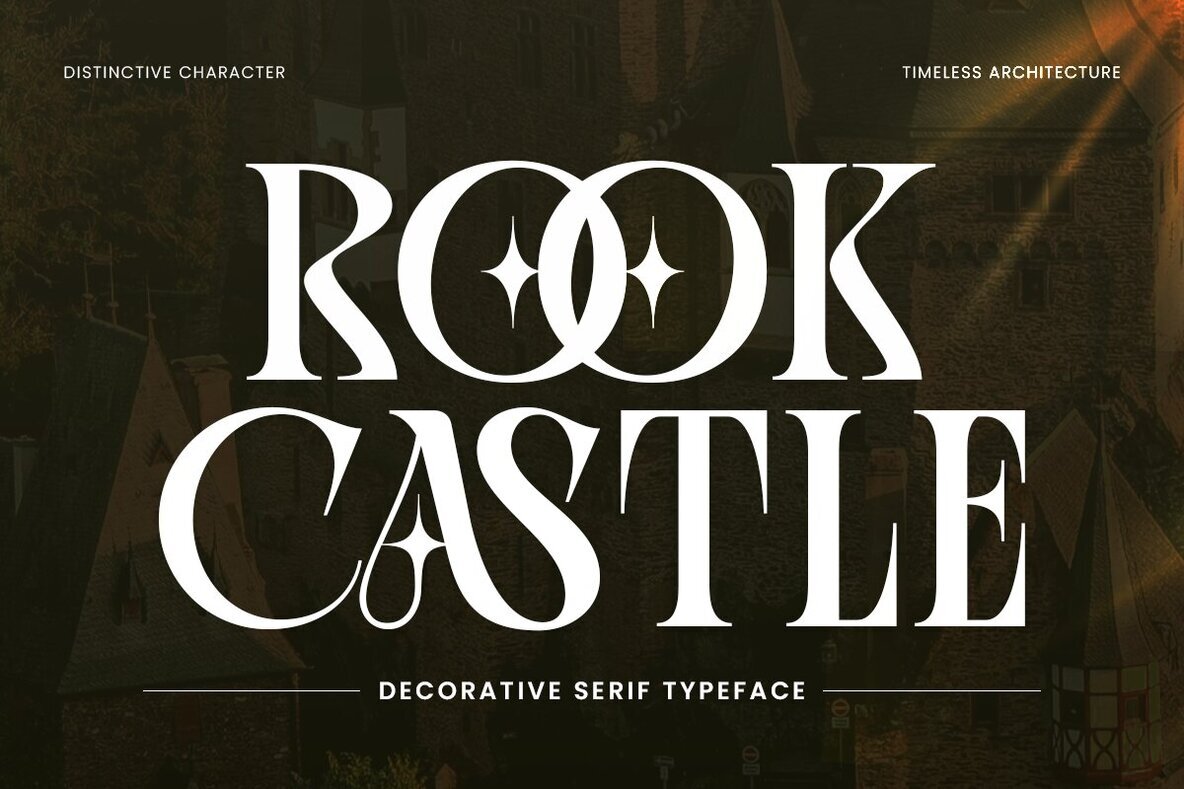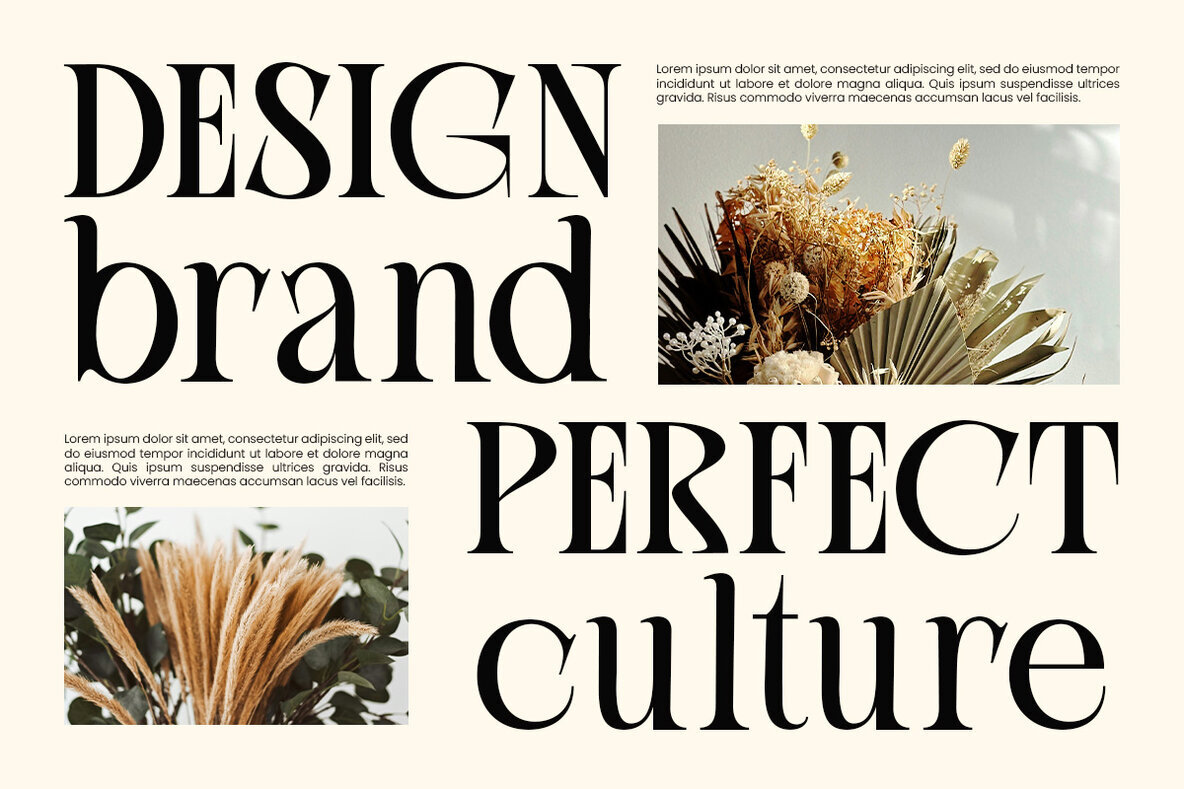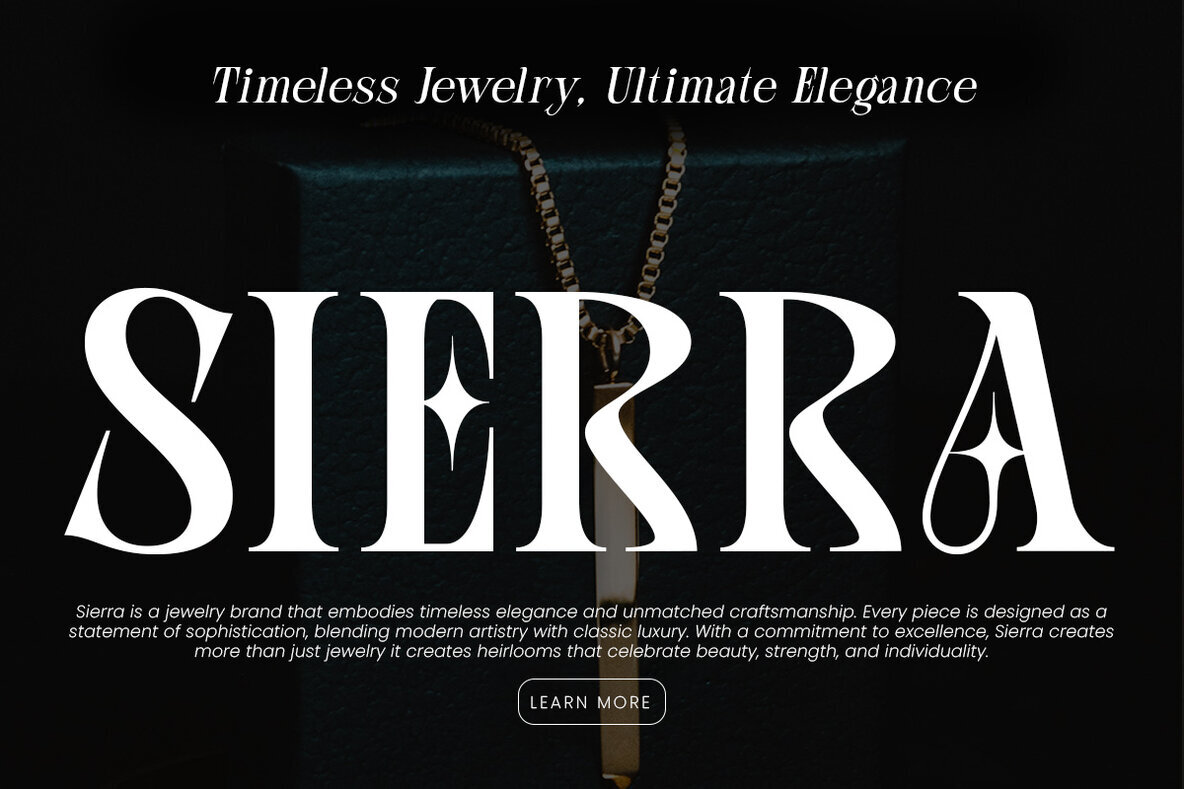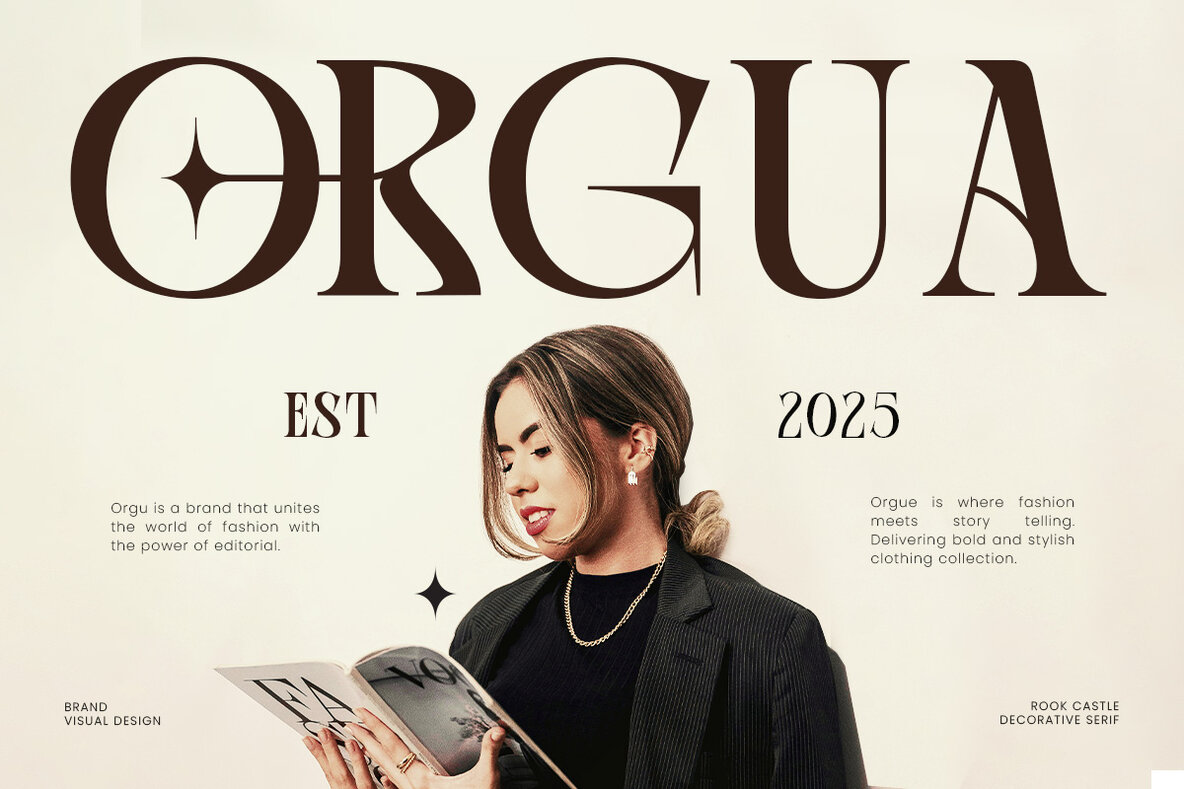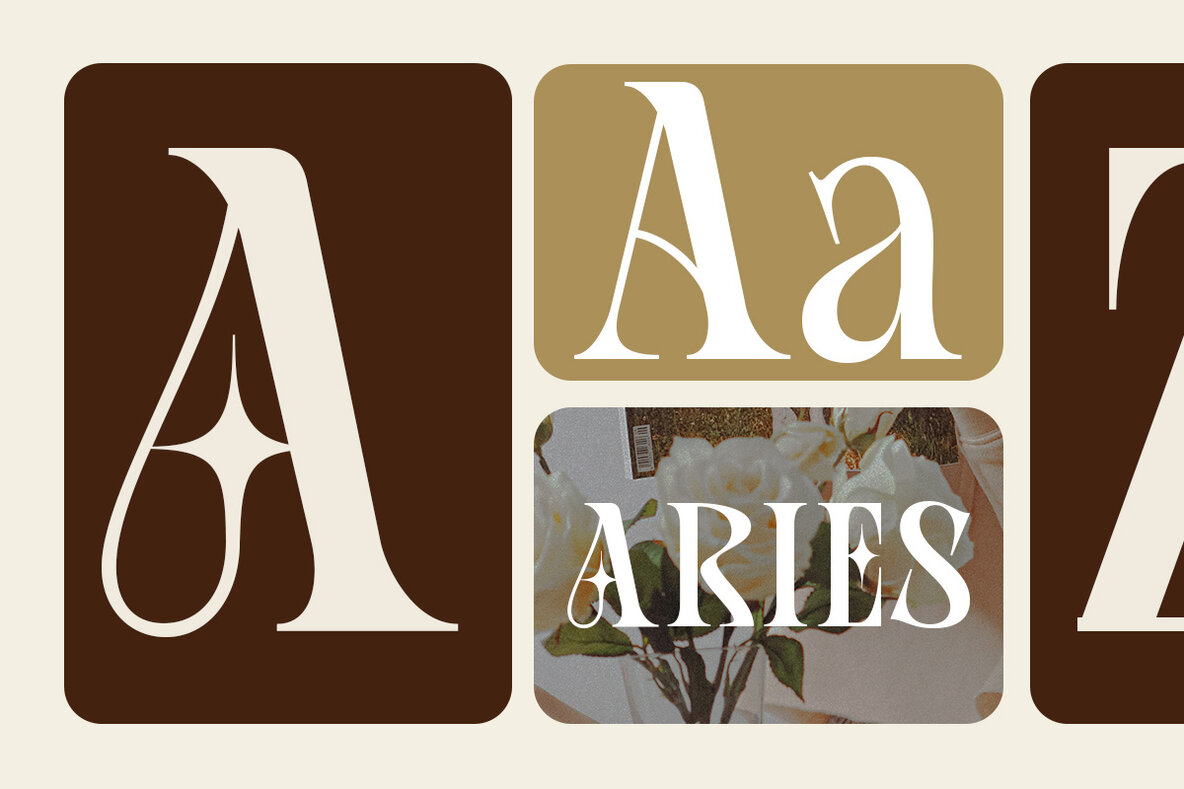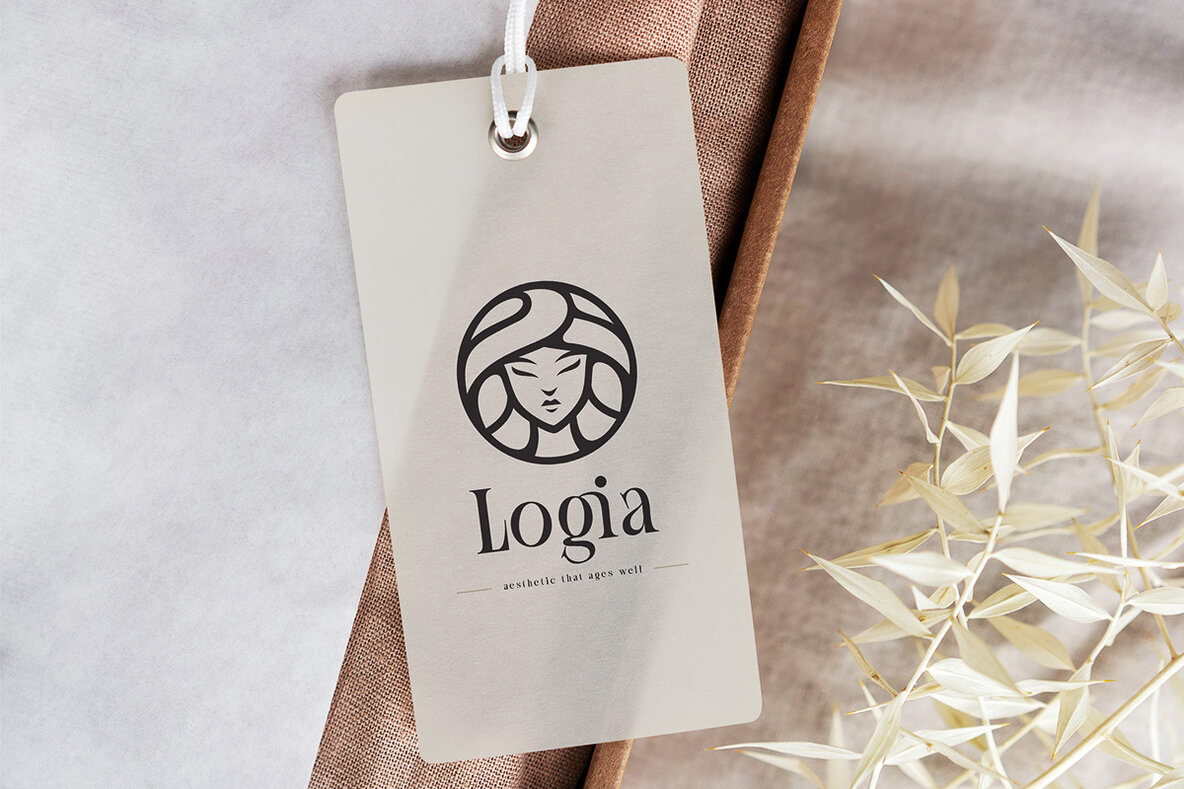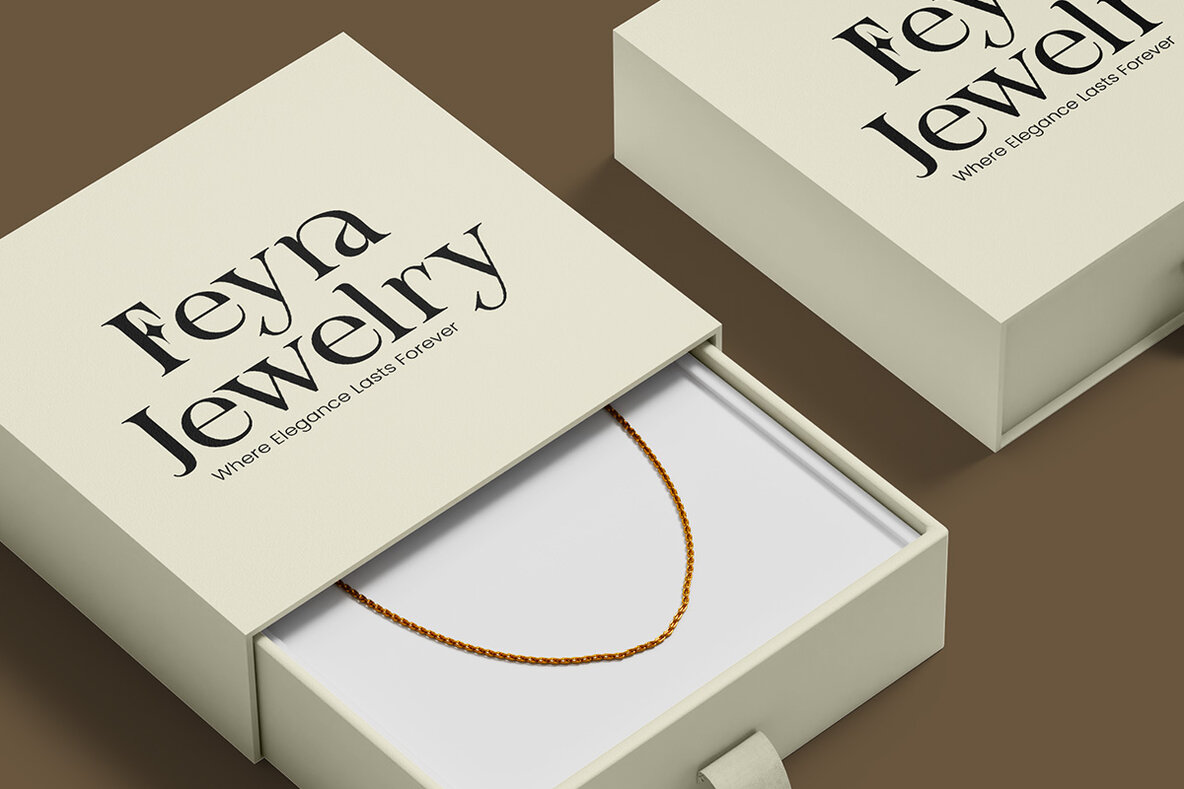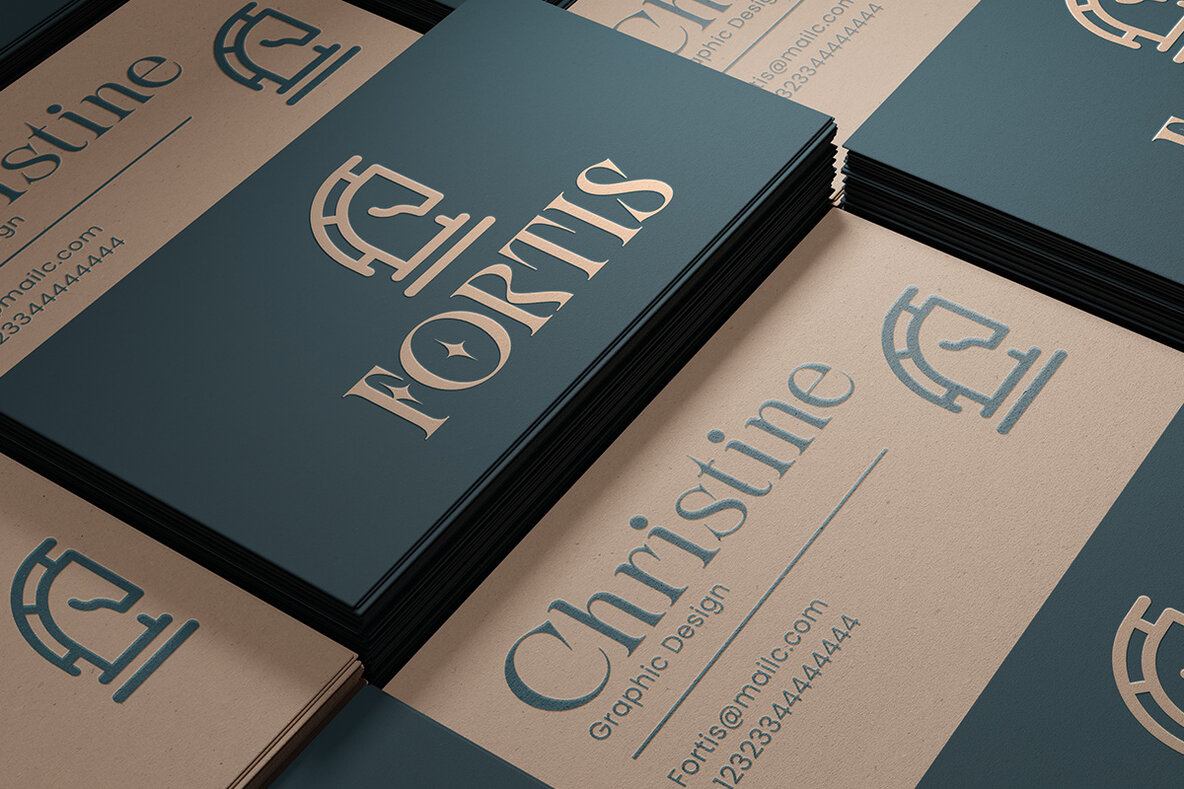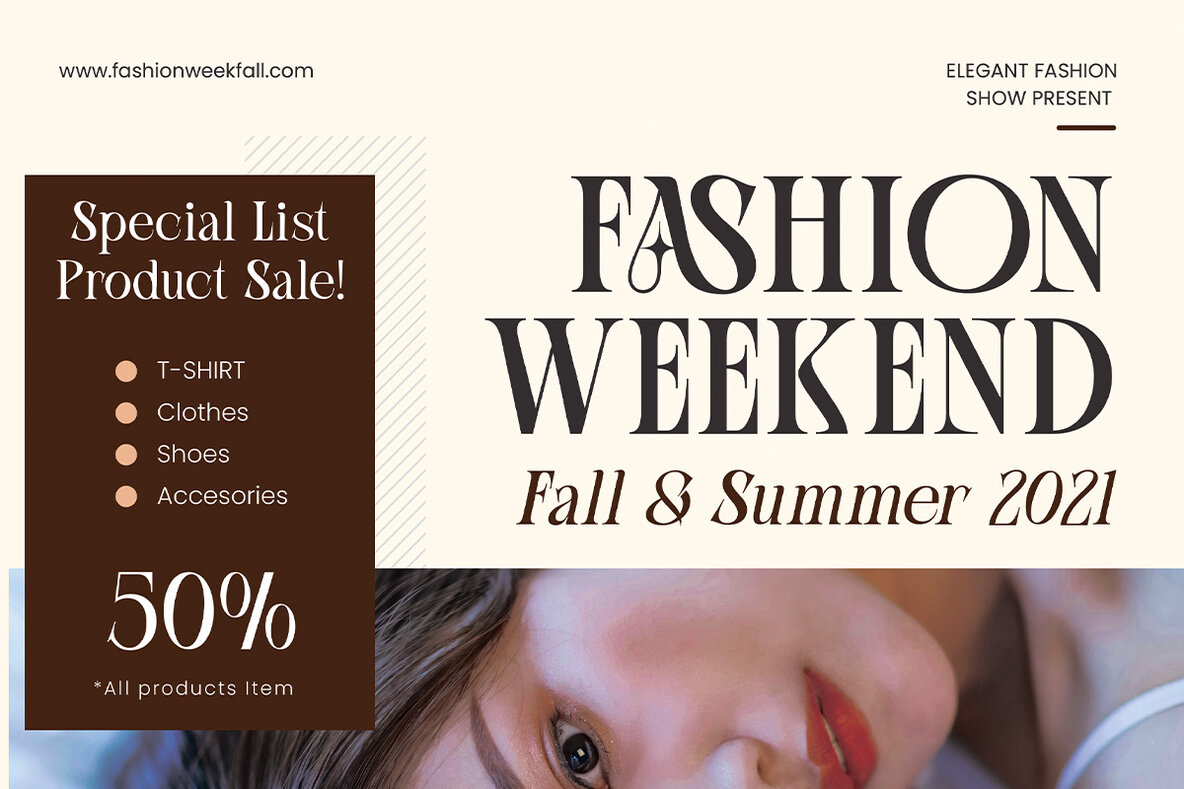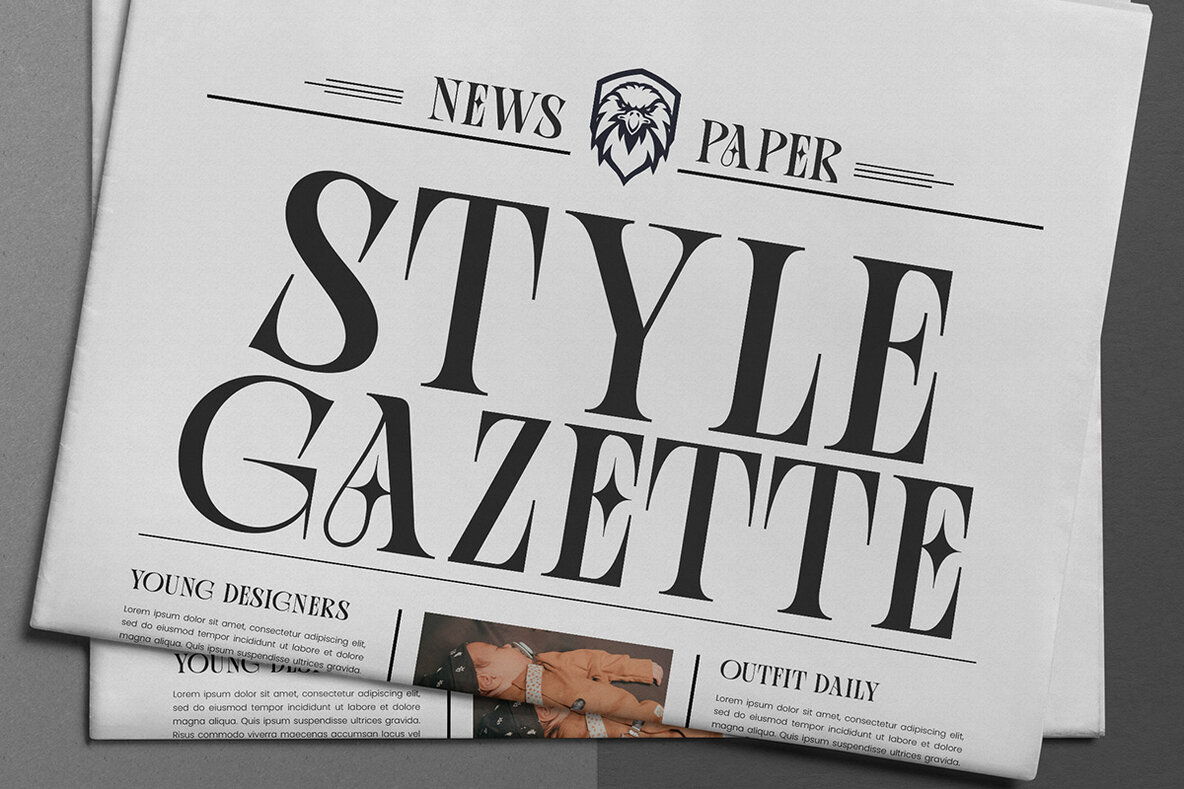
Rook Castle Font
expand_font Rook Castle Font Explore Rook Castle: A serif typeface of timeless elegance, blending sophistication with bold personality. Ideal for impactful designs. Decorative,Magazine,Serif,High Contrast,Classic,Fashion,Glamorous,Luxury,Sophisticated,Neoclassical,Refined Explore Exceptional Fonts for Digital and Traditional Media Fontpath offers a large variety of fonts for every designer, all at affordable prices and in multiple formats. Browse our best in class fonts today for all your creative needs, you can find everything you need right here at our site! Fonts,sans,sans serif,retro,script,decorative,title,FontPath 20140312040223 Fontpath offers 200,000+ of the most professional fonts found online, start downloading today! Real-Time Font Discovery at Fontpath